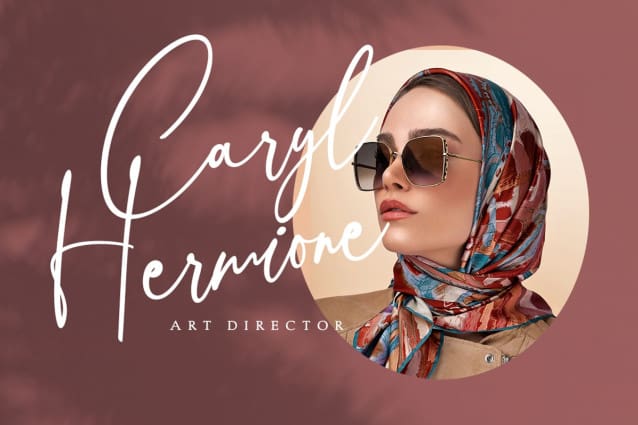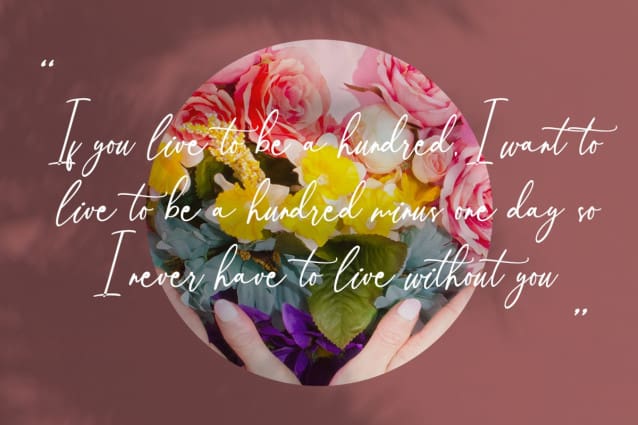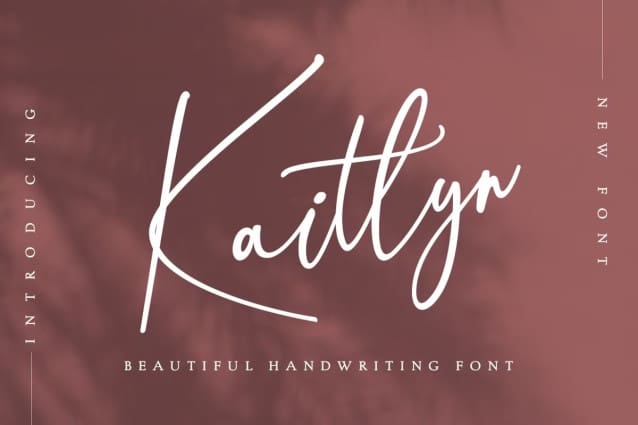
Kaitlyn Handwritten Font
Kaitlyn Handwritten Font, is a modern calligraphy typeface. his font is perfect for logos, invitations, stationery, wedding designs, label, photography, watermark, special events, or anything that needs a romantic, handwritten touch.